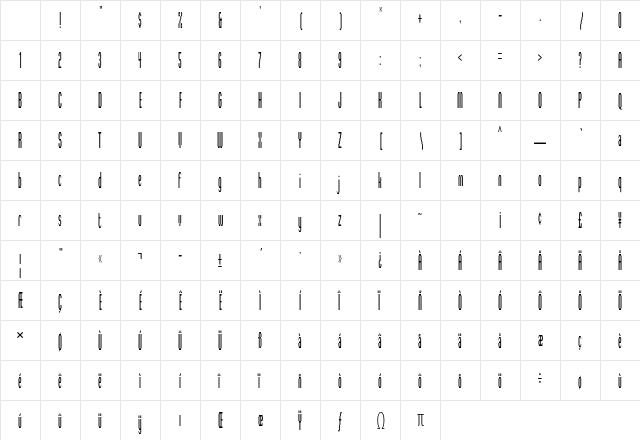
Complete Digitek Std Regular glyph index. Displaying only characters natively supported by Digitek Std Regular font.
Digitek Std has a distinctly futuristic character, with geometric precision and clean angles that feel at home in technology, gaming, and sci-fi contexts.